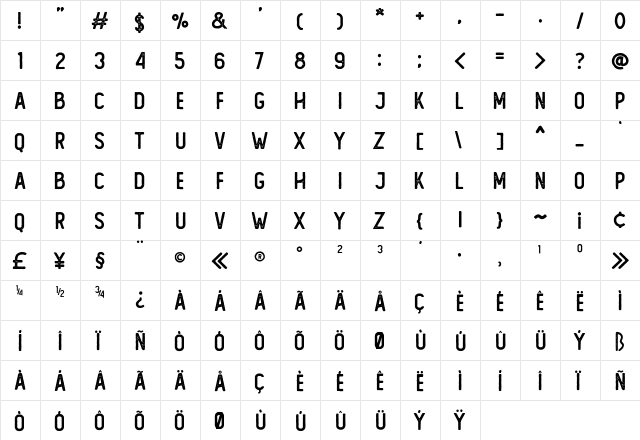
The Foregen Rough One Regular
Design Context for The Foregen Rough One Typeface
The Foregen Rough One embraces imperfection — its rough, textured character adds raw authenticity to designs that want to feel lived-in and unconventional.
Suited to punk-influenced zines, underground music branding, streetwear, and raw, anti-corporate design.
Pro Tip: Pair The Foregen Rough One with intentionally raw or lo-fi design elements. Fighting against it with overly polished surroundings will undermine its personality.